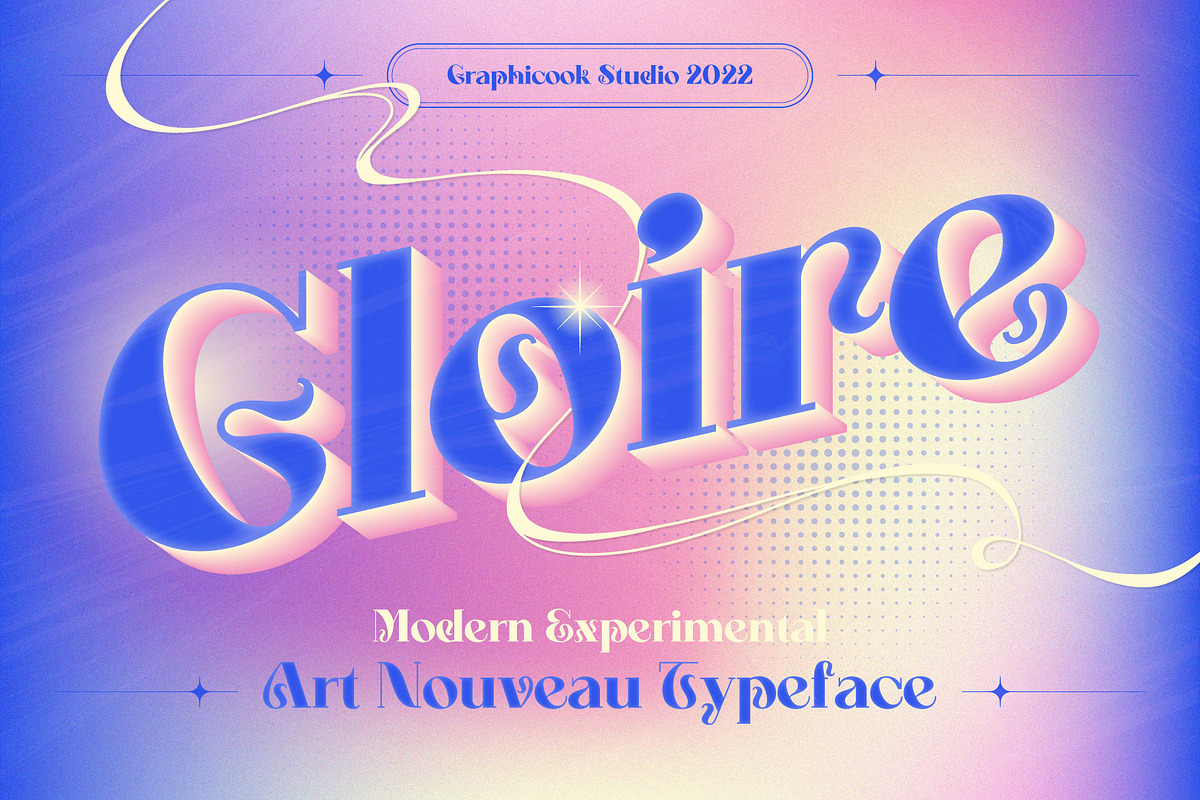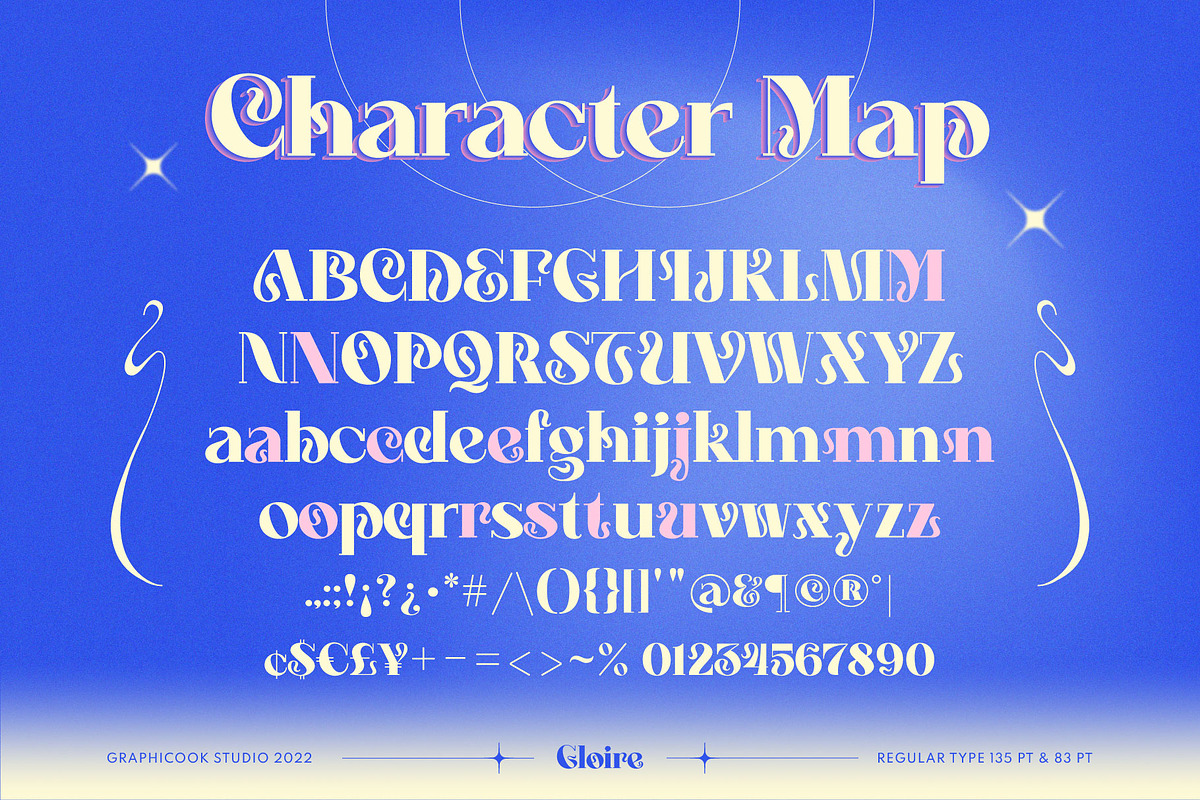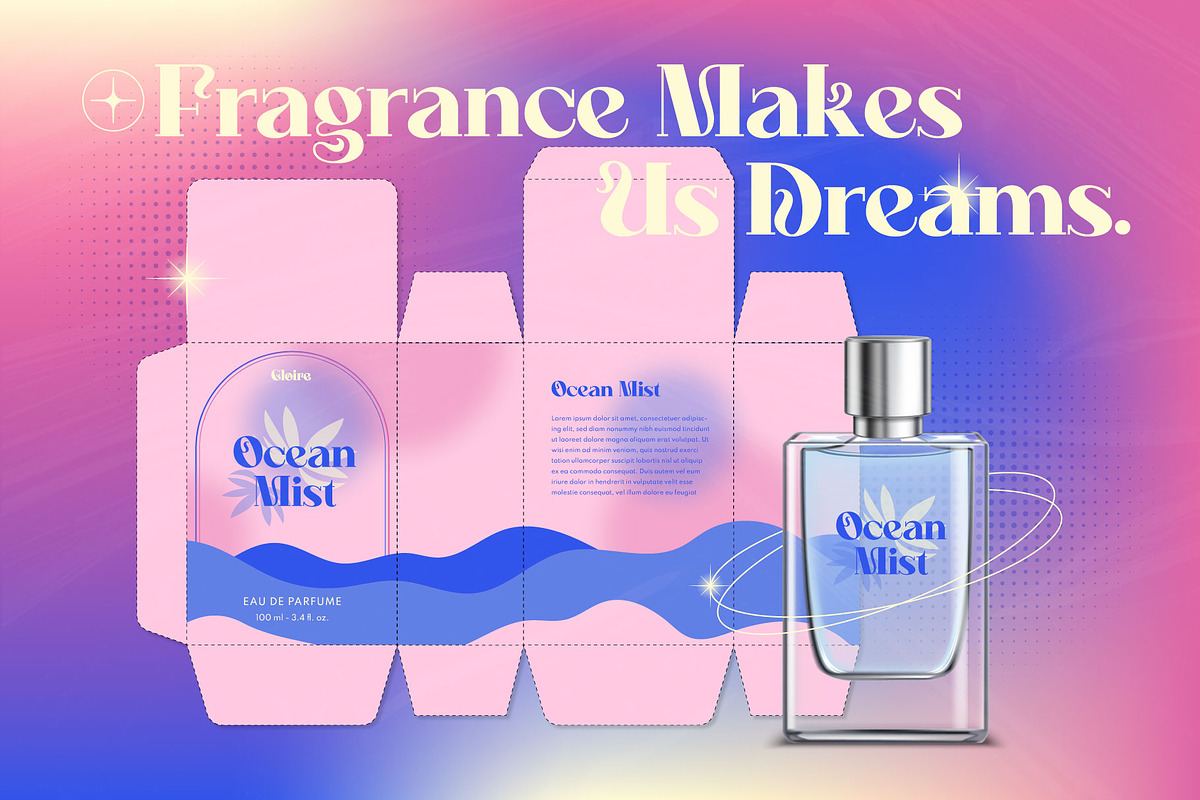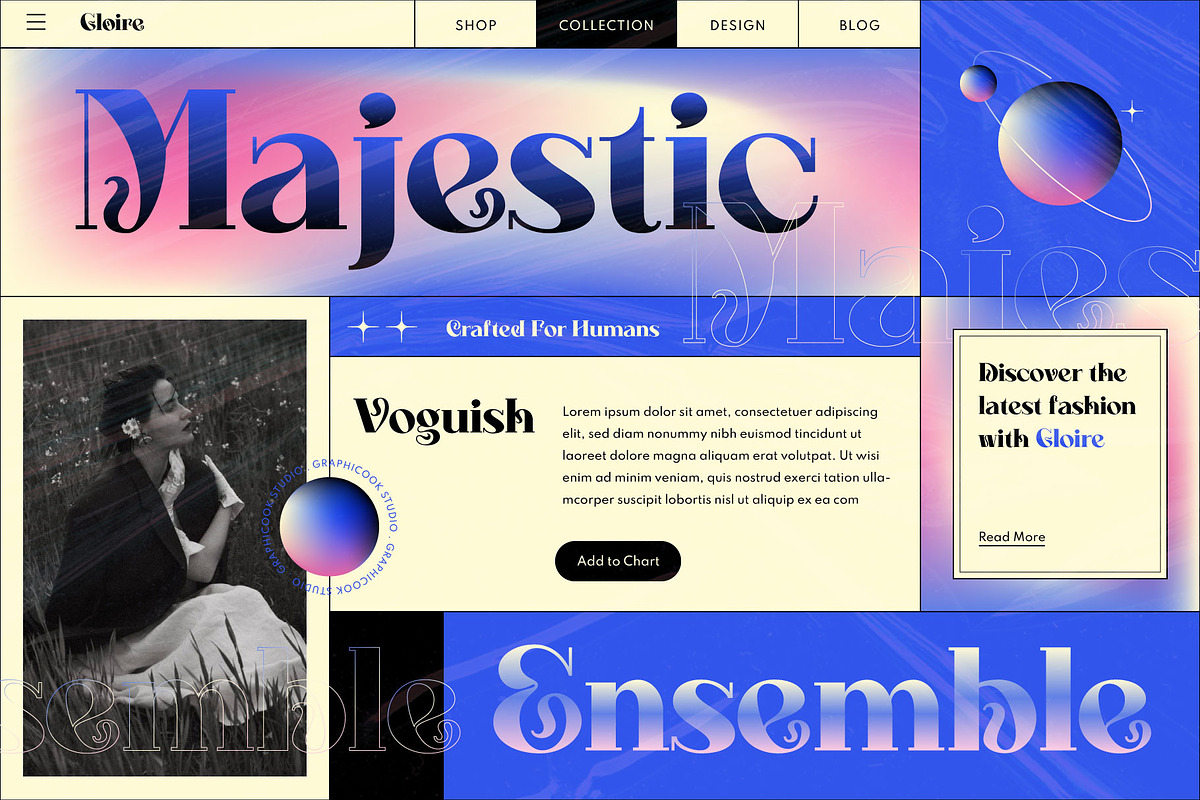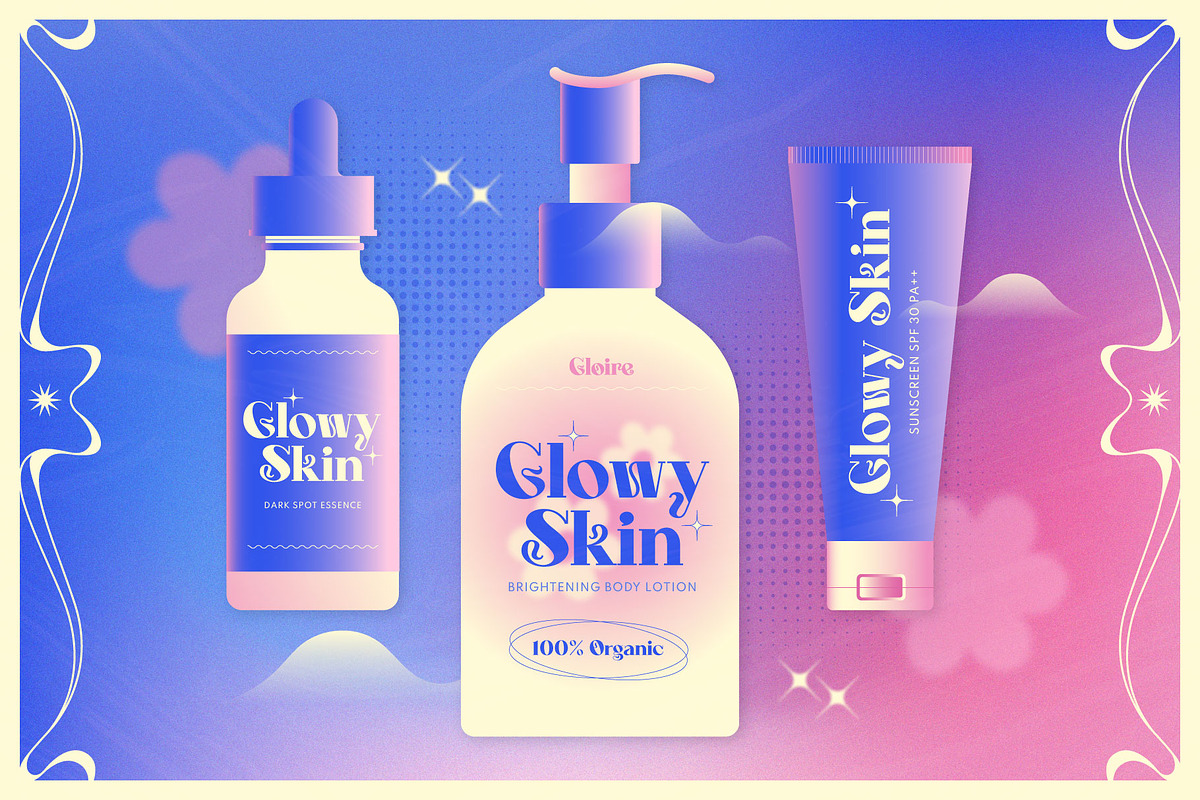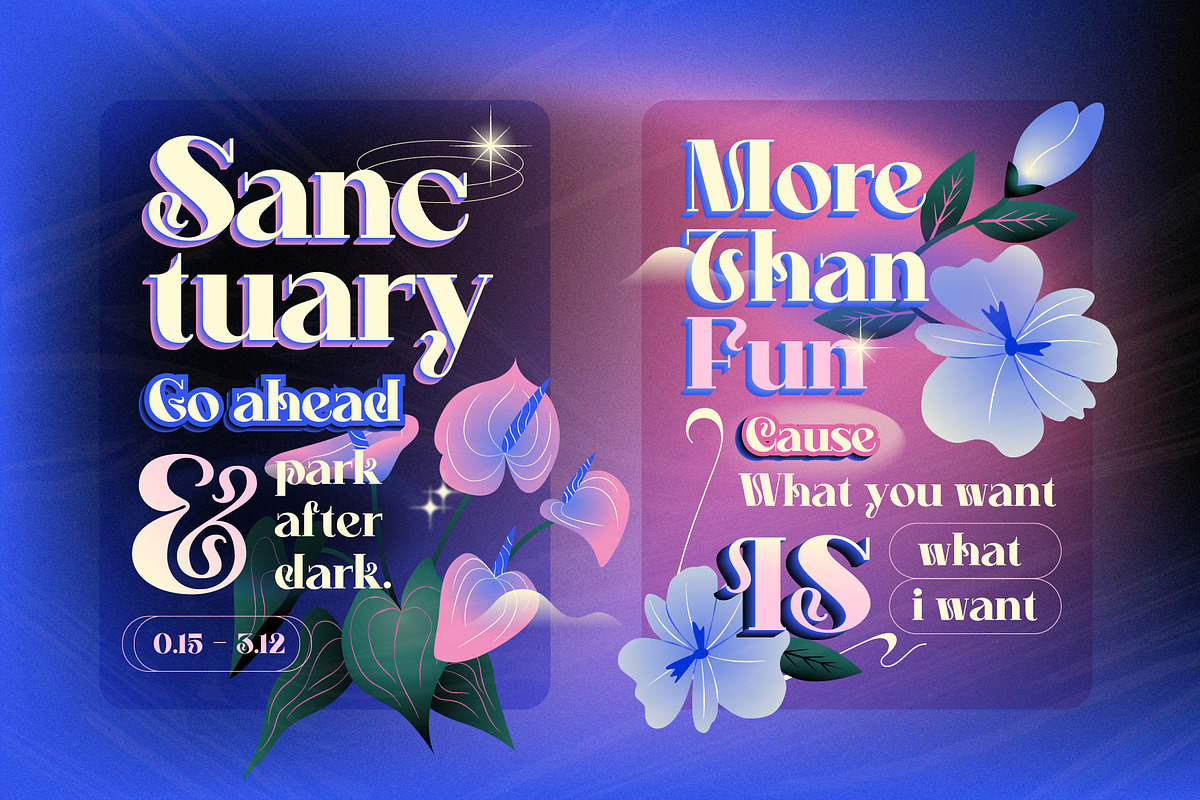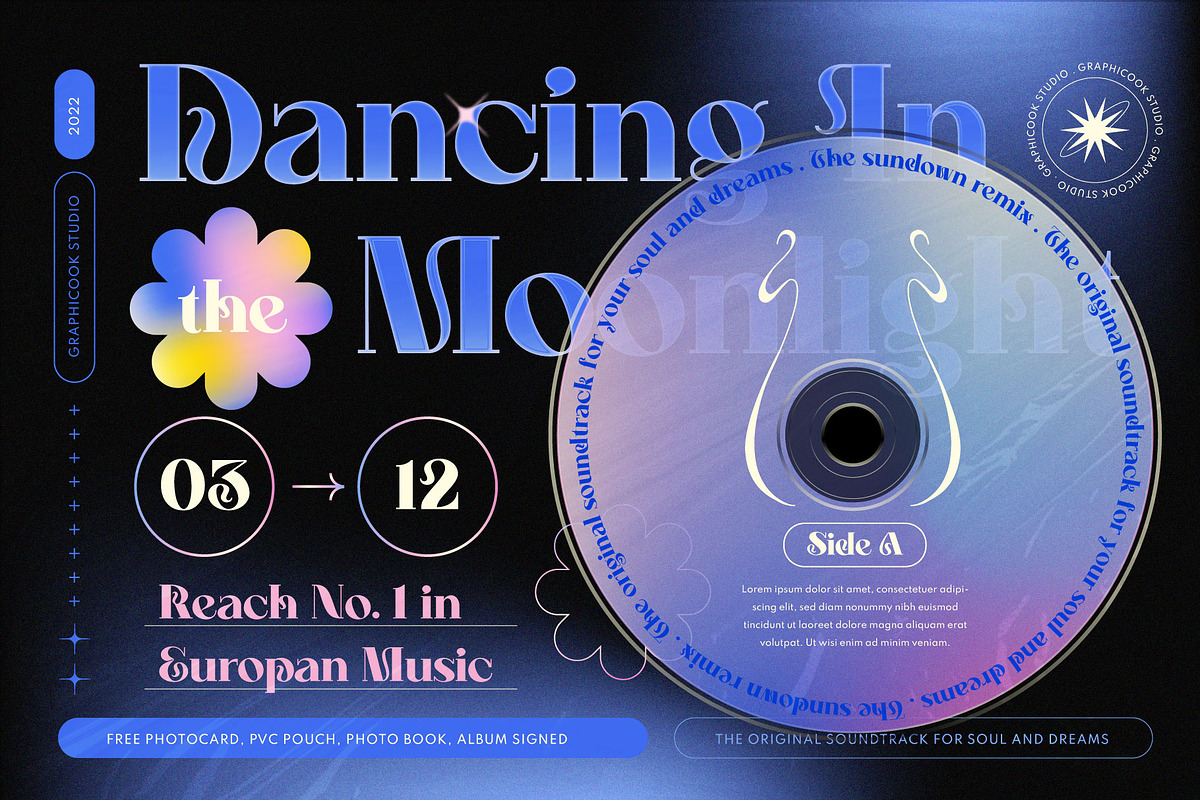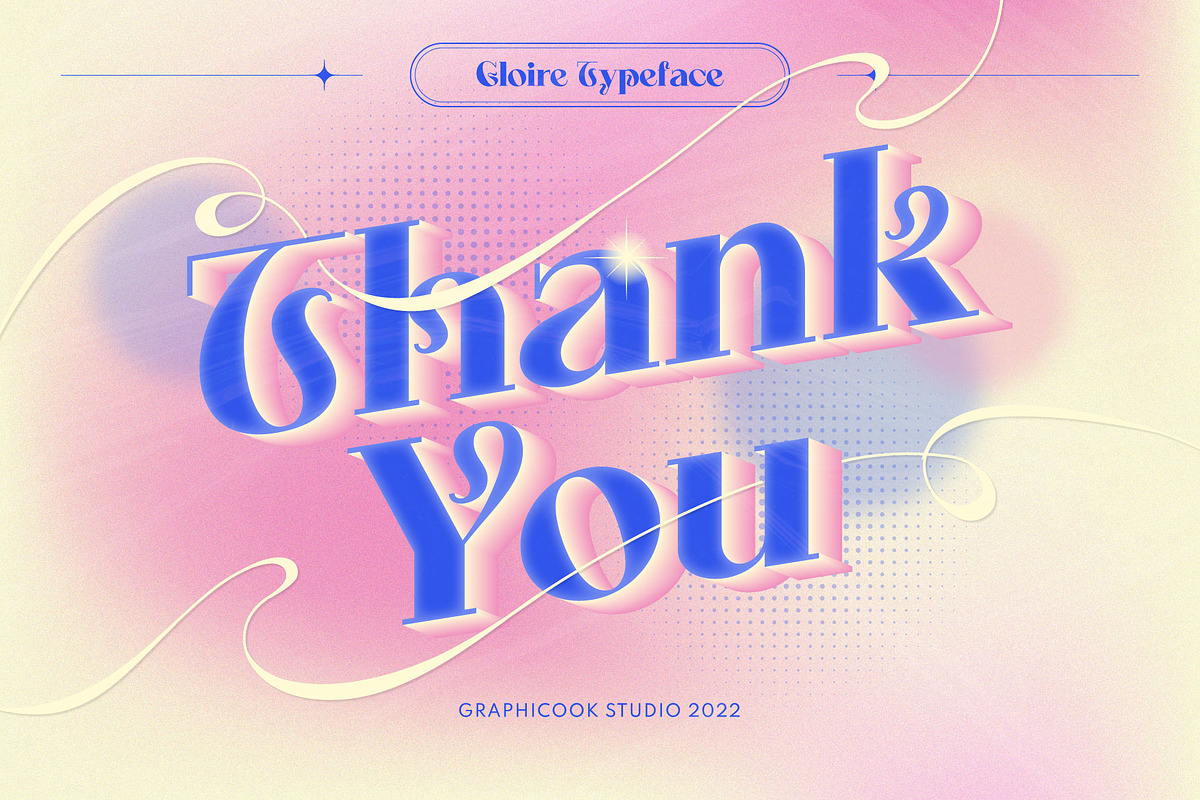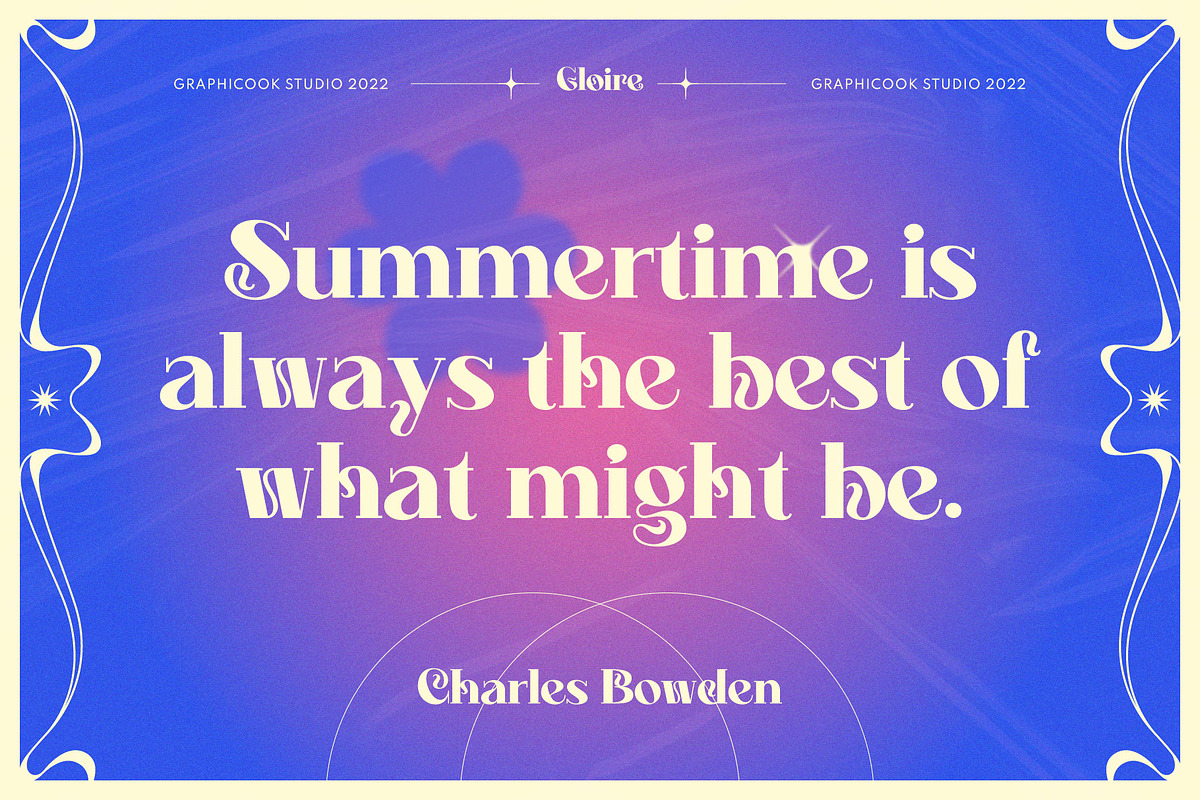
Gloire Display Typeface
Gloire: a flawless typeface blending art nouveau style with a dreamy vibes. Giving your design a soothing vibes and timeless beauty effortlessly.
Gloire is perfect for headlines, logotypes, magazines, packaging, quotes, movies, games, cover albums, book covers, and flyers, it's a perfect solution for creating eye-catching designs that stand out in any context.